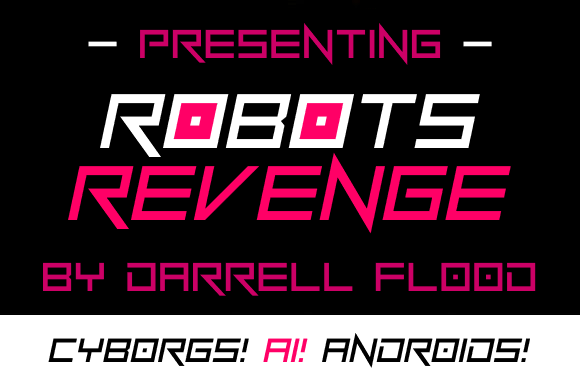
In a world where individuality reigns supreme, let your tech speak volumes with the Robots Revenge Font, a display font family that redefines style. Meticulously crafted by Dadiomouse, this font bursts with innovation, offering a tight, tile-based structure that exudes a slick, futuristic charm.
Unleash your creativity and embark on a journey through the cosmos with Robots Revenge. Dive into the depths of science fiction, where androids roam and alien civilizations beckon. Let your words dance across the screen, echoing the rhythm of a modern, high-tech symphony.
Picture this: an android protagonist embarking on an interstellar quest, its sleek metallic body adorned with the chiseled characters of Robots Revenge. Every click, every tap, every scroll becomes a testament to the font's captivating allure.
Embrace the allure of the unknown and let Robots Revenge ignite your imagination. Whether crafting immersive gaming experiences, composing futuristic music, or designing cutting-edge websites, this font will elevate your creations to new heights.